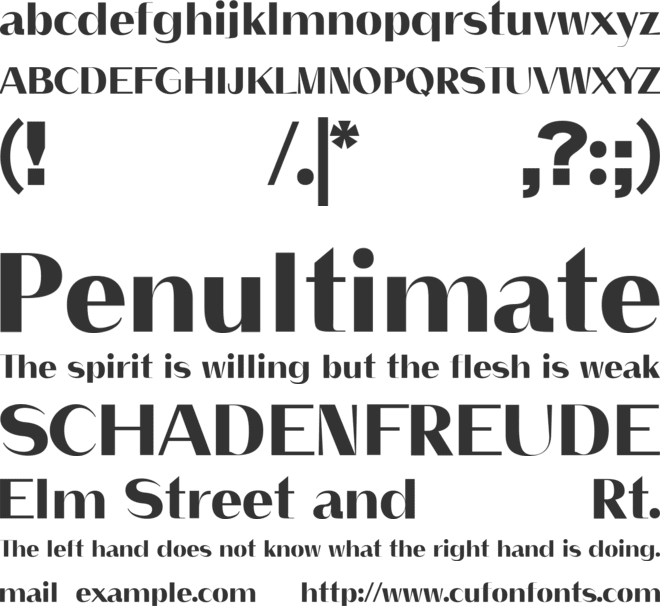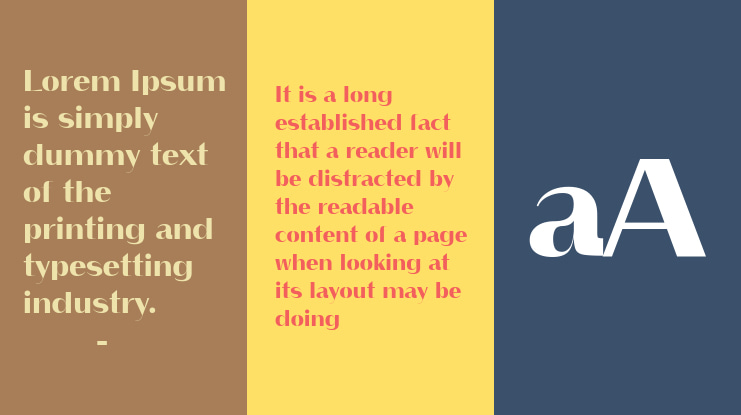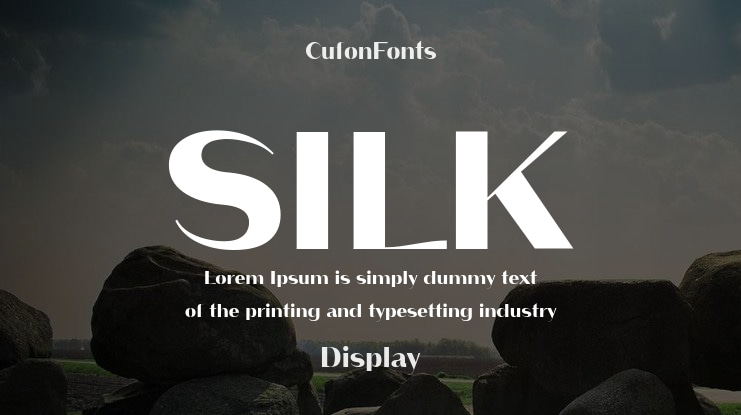
SILK Font Family
🎨 Font Name: Silk by Minimalist Art Studio
🎨 Font Description: SILK is a feminine sans serif with soft folds and modern clarity, perfect for beauty branding, fashion, and editorial calm.